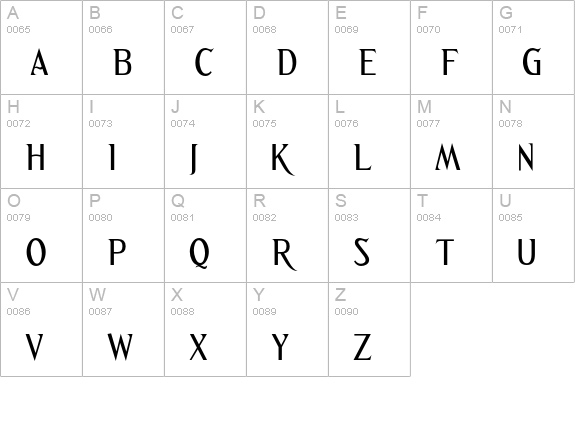
Greetings Font Details
Introducing Greetings font, a delightful and captivating typeface that will bring a touch of elegance and friendliness to any design project. With its smooth and flowing letterforms, Greetings font is sure to make a lasting impression. This versatile font is perfect for a wide range of applications, from branding and logo design to invitations and social media graphics. Its clean and legible characters ensure readability, while its unique style adds a sense of personality and charm. But what makes Greetings font even more appealing is that it is completely free. Yes, you read that right! This stunning font is freely available to download at FontsMarket.com. Now, you can enhance your designs with a high-quality typeface without breaking the bank. Whether you're a professional designer looking for a fresh addition to your font collection or a creative enthusiast seeking to add a touch of sophistication to your personal projects, Greetings font is the perfect choice. Its timeless appeal and effortless elegance will elevate any design and captivate your audience. So don't miss out on this incredible opportunity to download Greetings font for free at FontsMarket.com. Experience the beauty and versatility of this remarkable typeface and let your creativity soar. Say hello to Greetings font and say goodbye to ordinary design.